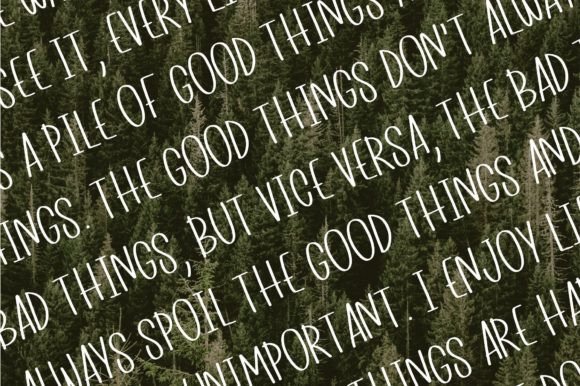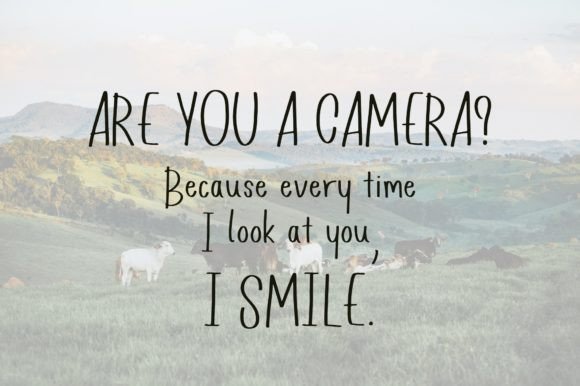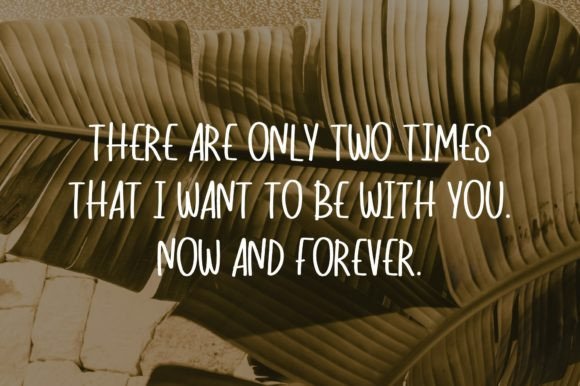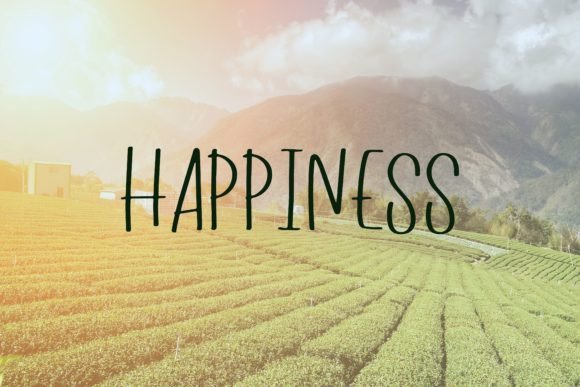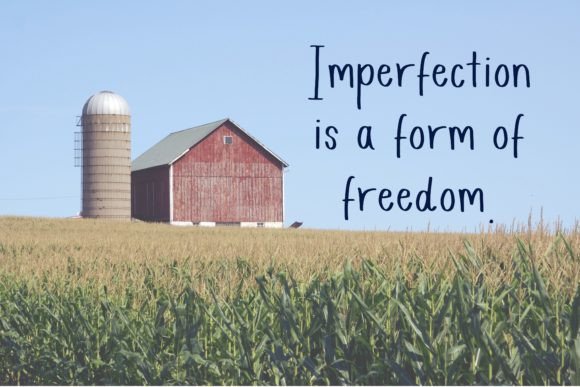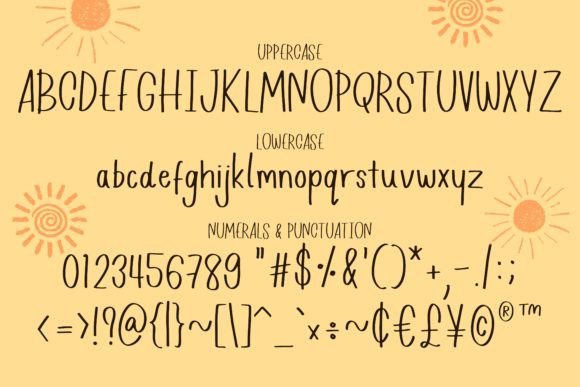
Introducing Exquisite Farm: The Perfect Handwritten Font for Designers and Crafters
Are you a designer or crafter looking for a unique and charming font to elevate your creative projects? Look no further than Exquisite Farm, a beautiful handwritten font that’s perfect for creating quotes, logos, and any lettering product. With its cute and friendly vibe, Exquisite Farm is sure to capture the hearts of your audience and leave a lasting impression.
What Makes Exquisite Farm Special?
Exquisite Farm is more than just a pretty font – it’s also highly functional. This font is PUA (Private Use Area) encoded, which means that you can easily access all of the glyphs and swashes with just a few clicks. This feature makes it incredibly easy to customize your text and add a personal touch to your designs. Whether you’re creating a logo, a quote, or a label, Exquisite Farm gives you the flexibility to make it truly special.
Exquisite Farm is a versatile font that can be used for a wide range of projects, including:
- Quotes and posters: Add a touch of elegance and sophistication to your inspirational quotes and posters with Exquisite Farm.
- Logos and branding: Create a unique and memorable logo for your business or brand with this charming font.
- Labels and packaging: Add a personal touch to your product labels and packaging with Exquisite Farm’s cute and friendly vibe.
- Stationery and cards: Create beautiful and eye-catching stationery and cards with this lovely font.
Why Choose Exquisite Farm?
So why choose Exquisite Farm over other fonts? Here are just a few reasons:
- Unique and eye-catching: Exquisite Farm is a one-of-a-kind font that’s sure to grab attention and leave a lasting impression.
- Easy to use: With its PUA encoding, Exquisite Farm is incredibly easy to use, even for those with limited design experience.
- Highly customizable: With a range of glyphs and swashes at your fingertips, you can customize your text to suit your style and needs.
- Cute and friendly: Exquisite Farm has a charming, approachable vibe that’s perfect for creating designs that resonate with your audience.
Tips for Using Exquisite Farm
To get the most out of Exquisite Farm, here are a few tips:
- Experiment with different sizes: Exquisite Farm looks great in a range of sizes, from small and delicate to large and bold.
- Play with glyphs and swashes: Don’t be afraid to get creative with Exquisite Farm’s glyphs and swashes to add a personal touch to your designs.
- Pair with other fonts: Exquisite Farm pairs beautifully with other fonts, so feel free to experiment with different combinations to create a unique look.
Exquisite Farm is a beautiful, versatile font that’s perfect for designers and crafters looking to add a touch of elegance and sophistication to their creative projects. With its PUA encoding, cute and friendly vibe, and high level of customizability, Exquisite Farm is sure to become a go-to font in your design arsenal. So why wait? Download Exquisite Farm today and start creating stunning designs that capture the hearts of your audience!
- Cute and friendly handwritten font
- Perfect for quotes, logos, labels, and more
- Highly customizable
- Easy to use, even for beginners